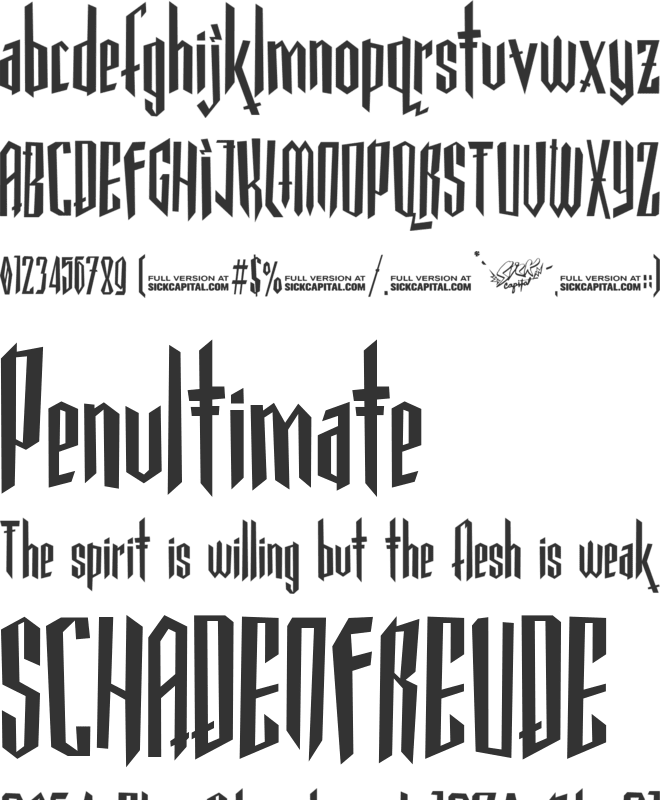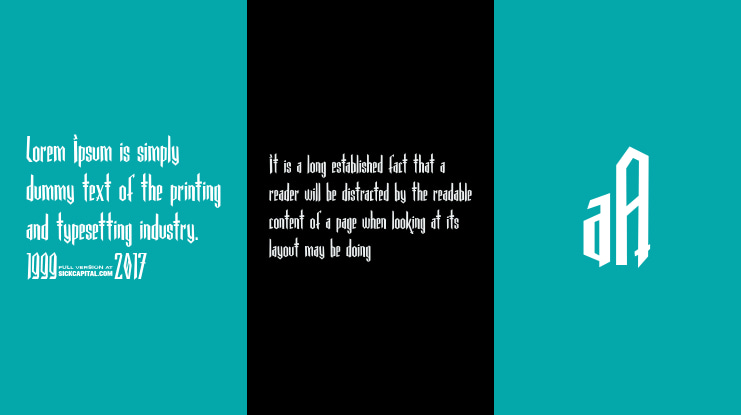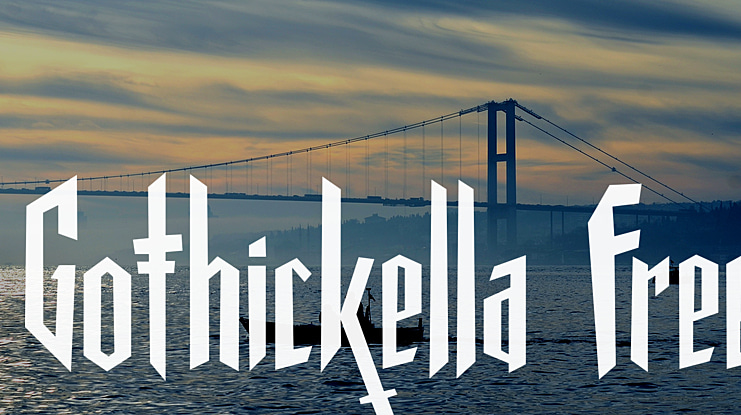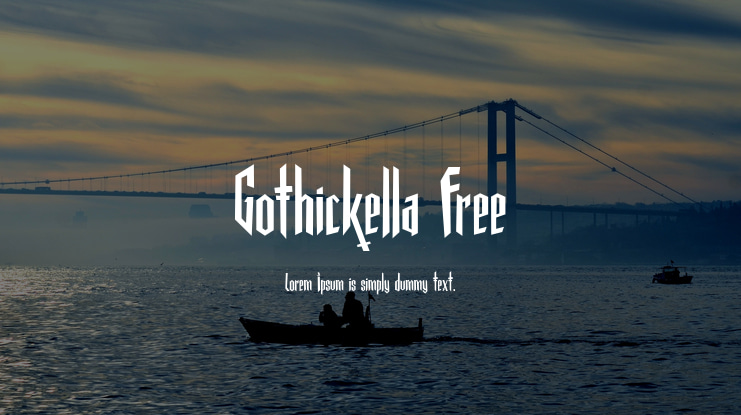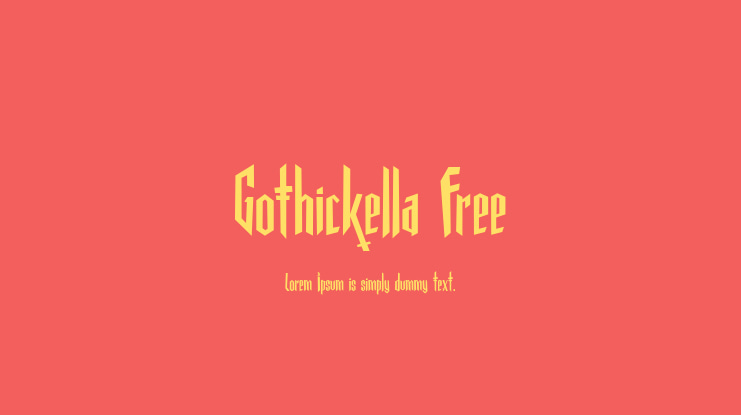
Gothickella Free Font Family
SickCapital
Gothickella, a handwritten Gothic font with spooky tall and short letters! I initially started out with tall letters that I thought would go in a different direction but I decided to go with this one and I had some fun. Might be useful for Halloween!